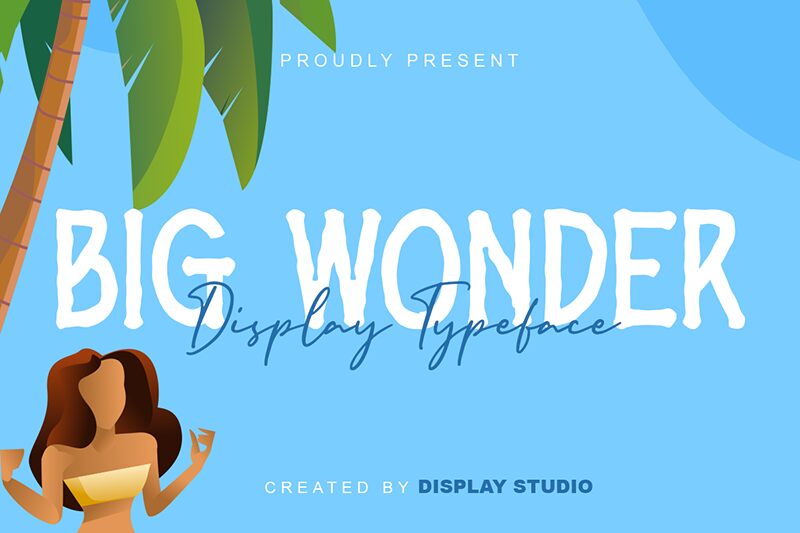
Introducing Big Wonder - a narrow, eroded display font from Display Studio. Perfect for crafting unique logos, posters, and headlines that stand out from the crowd. Let Big Wonder be your go-to font for adding depth and texture to any project.
Big Wonder